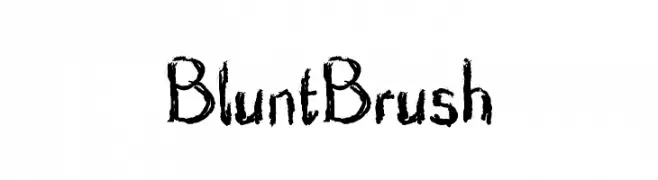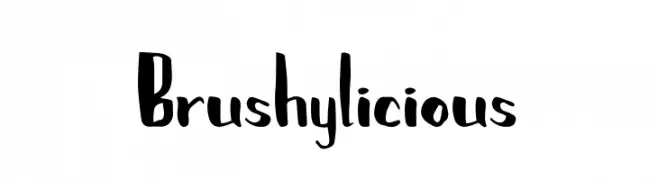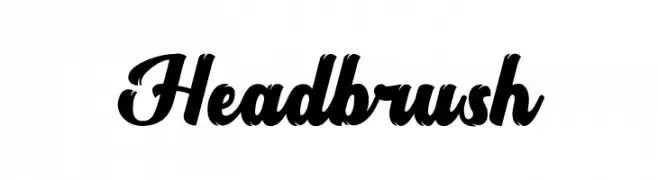
A bold, expressive brush-style font with dynamic strokes and artistic flair.
A bold, brush-style font with expressive, hand-drawn strokes.
A bold, textured brush font with dynamic, hand-painted strokes.
A bold, brush script font with a dynamic, handwritten style.
A bold, brush-style font with dynamic, handwritten strokes.
A bold, dynamic brush-style font with expressive strokes.
A playful, hand-drawn font with a brush stroke style.
A bold, brush-style font with dynamic, high-contrast strokes.
A bold and expressive brush script font with dynamic strokes.
A bold, expressive brush-style font with a raw, artistic appearance.